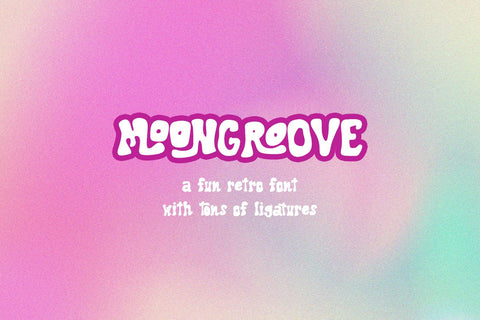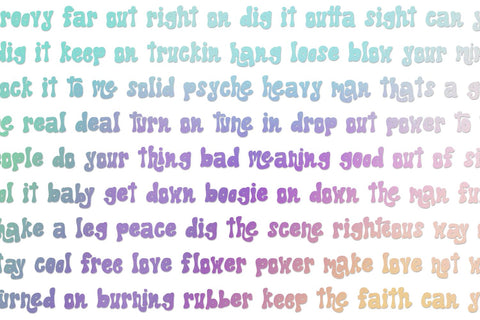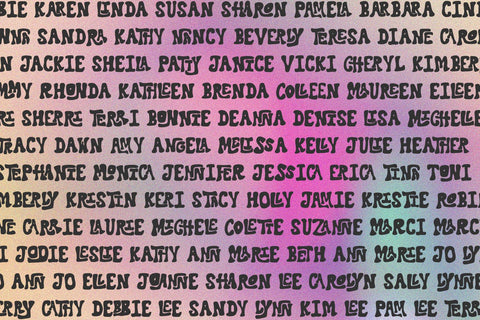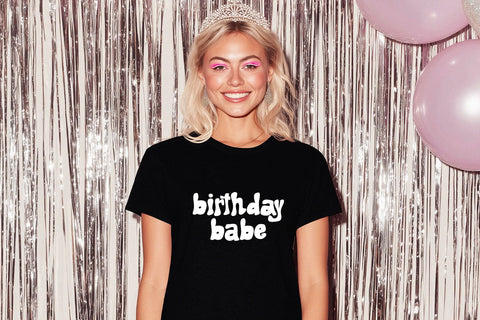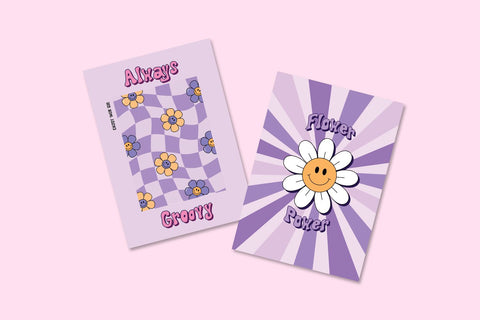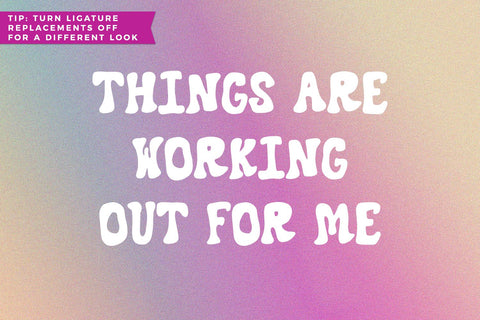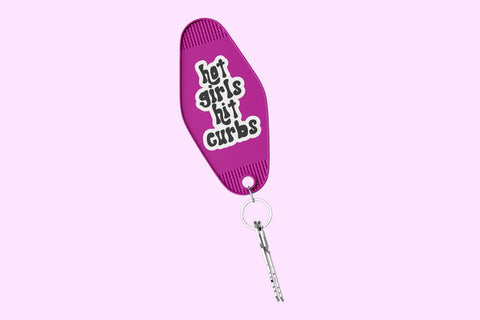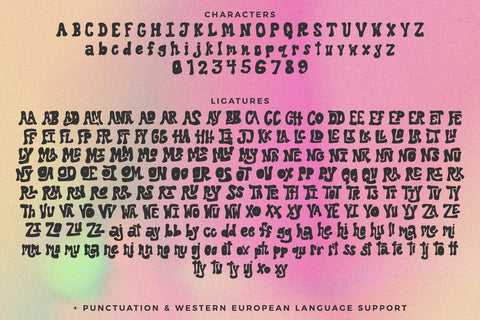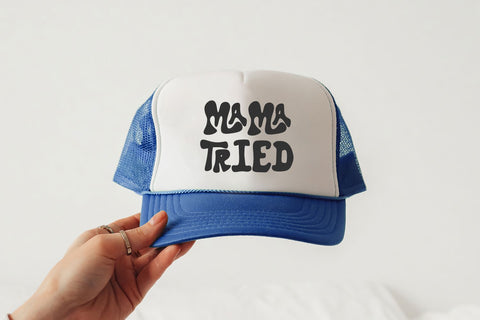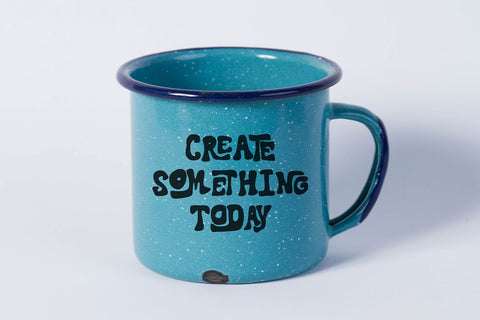
Moongroove Retro Font
Moongroove is a fun retro font with interlocking ligatures. The playful ligatures in Moongroove lend themselves to a whimsical aesthetic. Moongroove is also perfect for logos & branding, greeting cards, painted banners, digital planners, note-taking apps, Canva, Cricut projects, Silhouette projects, designing SVG files, laser cutting projects, & more.
Moongroove includes:
- full upper + lowercase characters
- numbers + punctuation
- 183 ligatures
- Western European language support - English, French, Spanish, Portuguese (Brazil), Portuguese (Portugal), Italian, German (Germany), German (Austria), Dutch, Danish, Swedish, Norwegian (Bokmål and Nynorsk), Finnish, Icelandic, Irish, Welsh